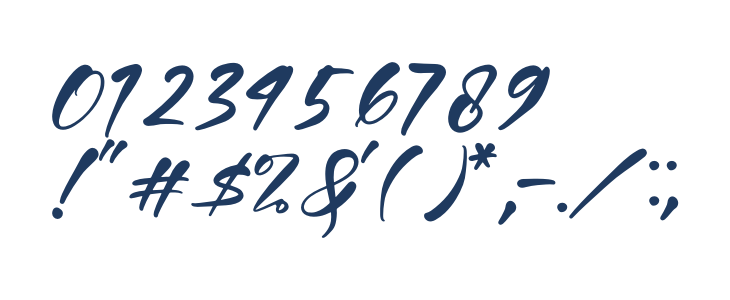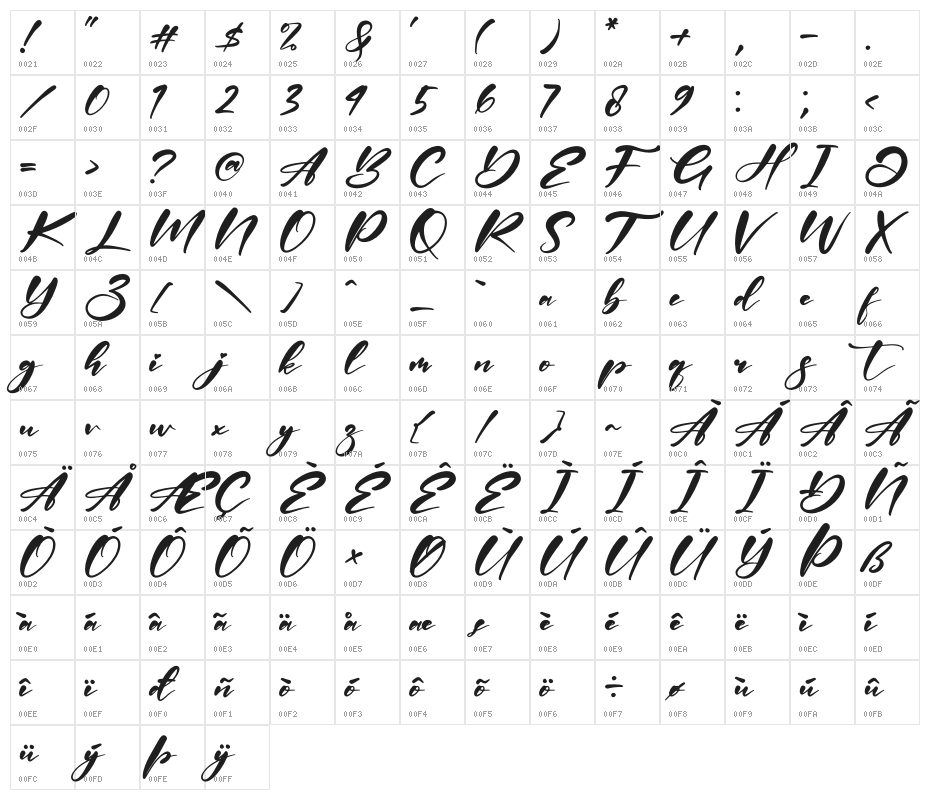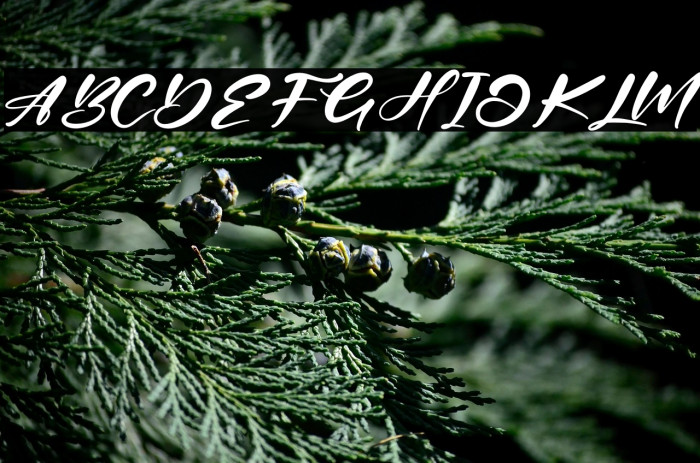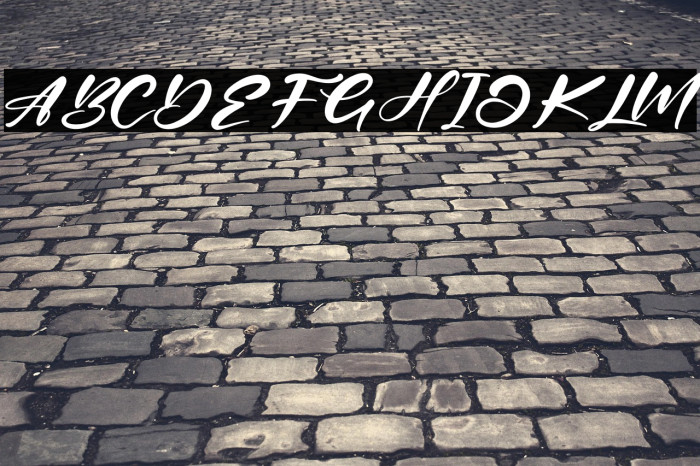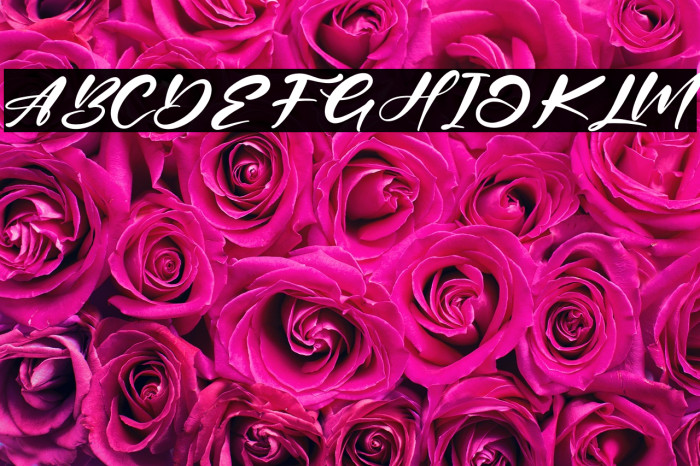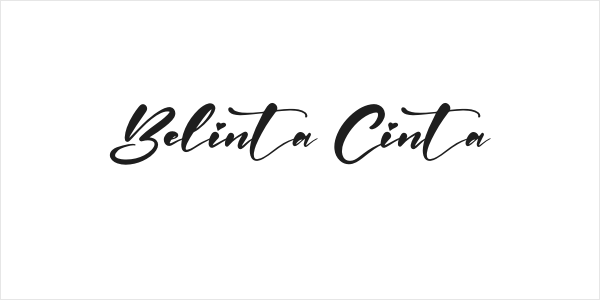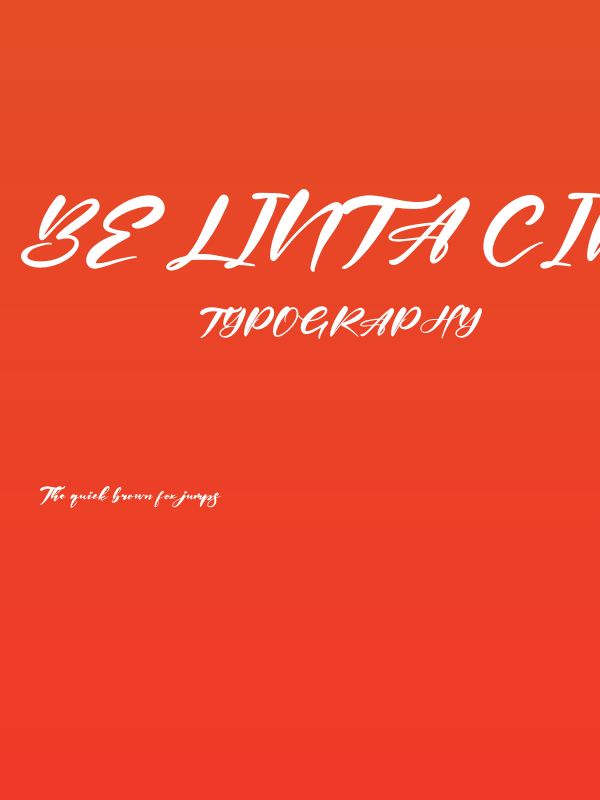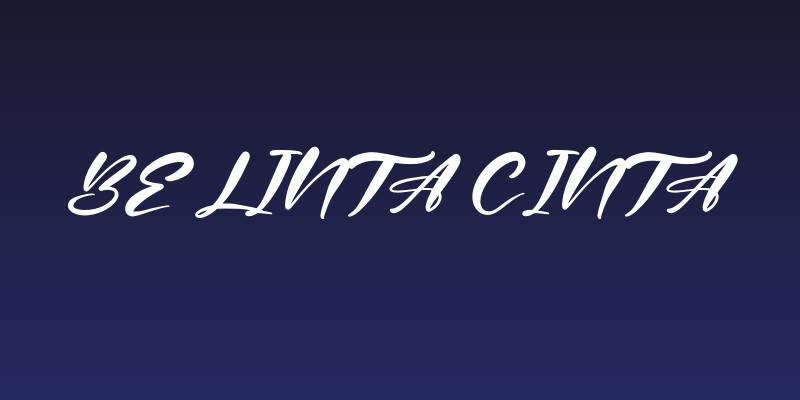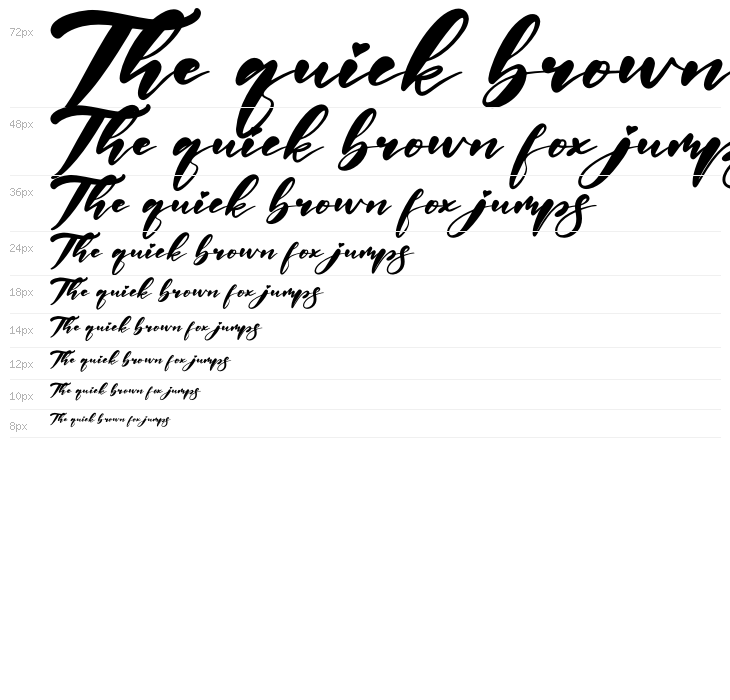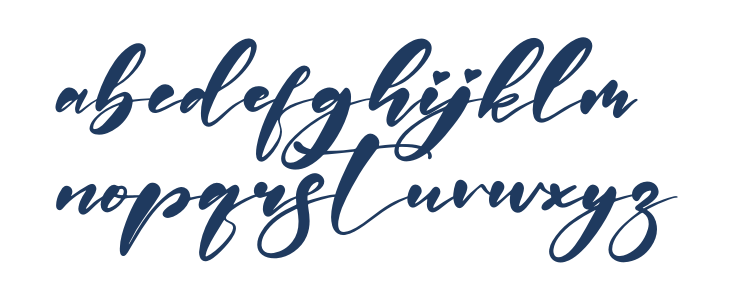
Belinta Cinta Font
Belinta Cinta Description
This font exudes a dynamic and expressive style, characterized by its fluid, cursive script that mimics the elegance of handwritten calligraphy. The letters are interconnected with smooth, flowing strokes, creating a sense of movement and grace. The uppercase letters are bold and prominent, while the lowercase letters maintain a consistent rhythm with playful loops and swashes. The numbers and special characters follow the same stylistic cues, ensuring a cohesive appearance across all elements. This font is ideal for projects that require a personal touch, such as invitations, greeting cards, or branding materials that aim to convey warmth and creativity.